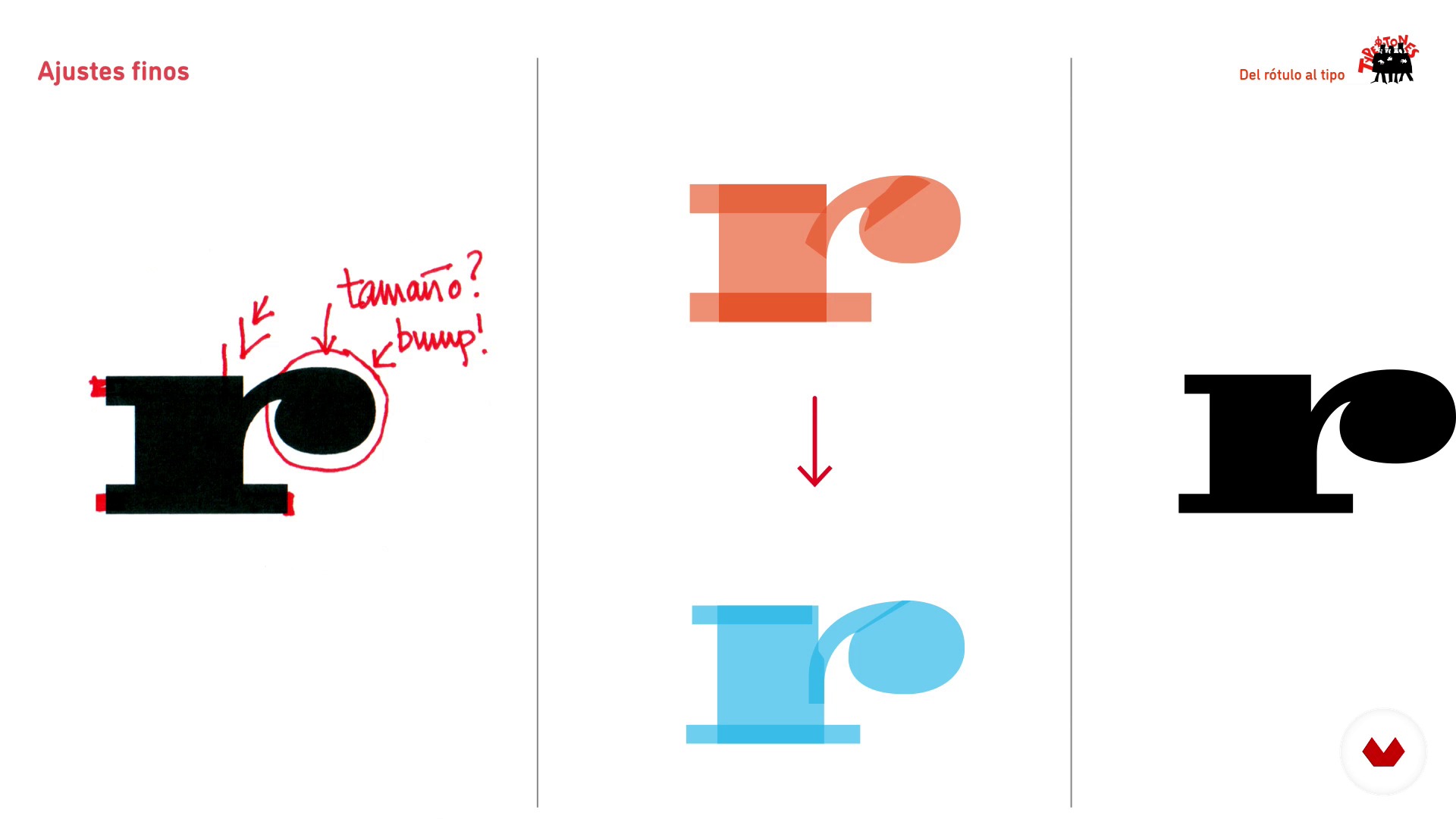
From the Lettering to the Font
Fine adjustments. Space, print and correct
About the video: Fine adjustments. Space, print and correct
“After printing the proof sheet and writing down corrections, we will fine-tune the drawings, converting those groupings of pieces into characters with personality, creating modulations, adapting serifs and introducing ink traps. Next we will space, seeing the difference between general spacing and kerning. ”
In this video lesson Type-Ø-Tones addresses the topic: Fine adjustments. Space, print and correct, which is part of the Domestika online course: From the Lettering to the Font. Create your own alphabet based on a found lettering.
“[Music] In this lesson we will return to the analog material ... and come on ... to work with an impression of the characters we have made so far ... and we will see what corrections we have seen once printed. It's about placing marks and then trying to reproduce those variations in our vector documents. [Music] One of the aspects that we appreciate seeing the printed material is that the characters seem too rough. Maybe too true to the original label. Respect for the original label is not good advice to fix it on the typographic elements and we can observe that the serifs, there is a red c...”